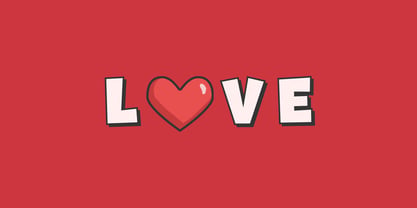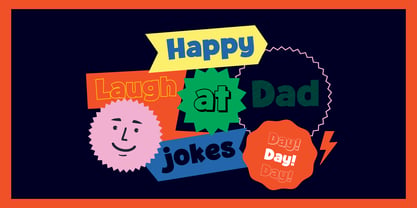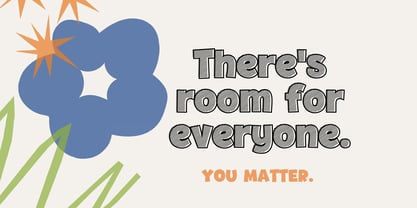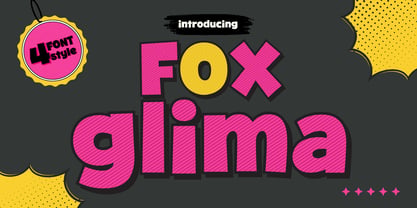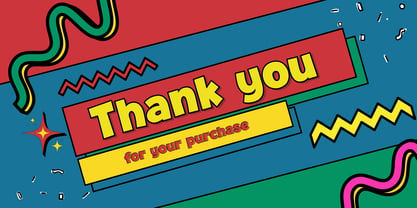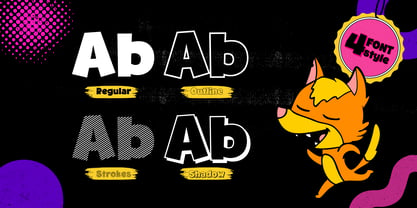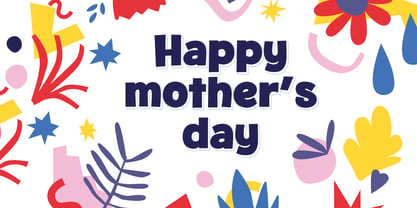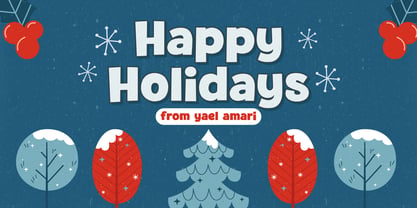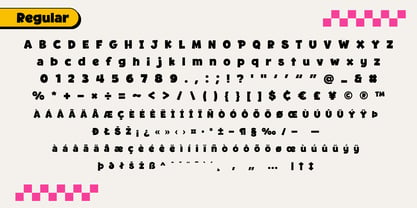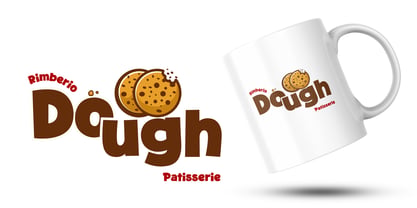
Fox Glima
by Fox7
The Fox Glima Font Family was designed by Rattana Rattanawan and published by Fox7. Fox Glima contains 4 styles and family package options. More about this family
Fox Glima is a playful and bold display font family that brings fun and energy into your creative projects. With its chunky letterforms, cheerful personality, and eye-catching comic-inspired style, Fox Glima is perfect for designs that need a bright and joyful touch. This font package includes 4 versatile styles: Regular, Outline, Strokes, and Shadow, allowing you to mix and match for more creative possibilities. Fox Glima is ideal for: ⊹ Kids branding ⊹ Posters ⊹ Book covers ⊹ Packaging ⊹ T-shirts ⊹ Stickers ⊹ Logos ⊹ Social media graphics ⊹ Cartoon themes ⊹ Fun merchandise designs Whether you're creating playful branding or standout display text, Fox Glima adds a charming and lively character to every design. Add a burst of fun to your projects with Fox Glima — a bold font family designed to make your designs shine!